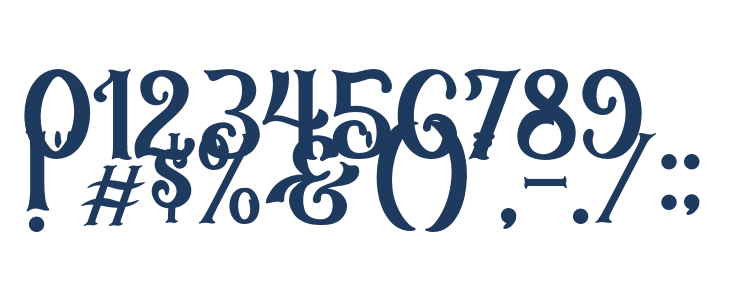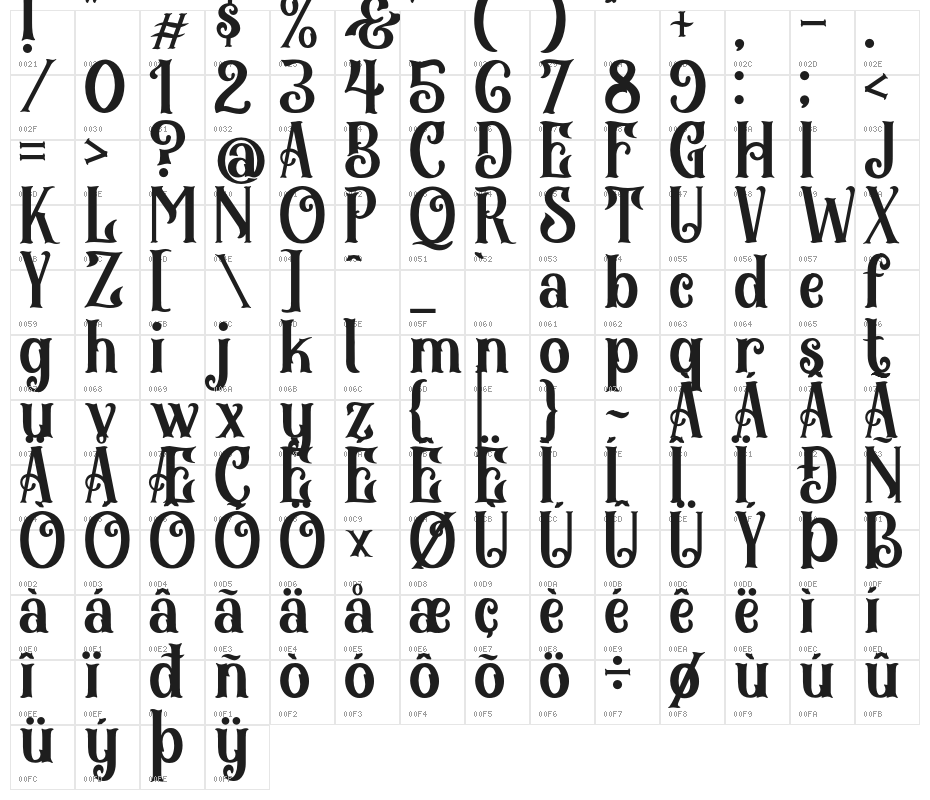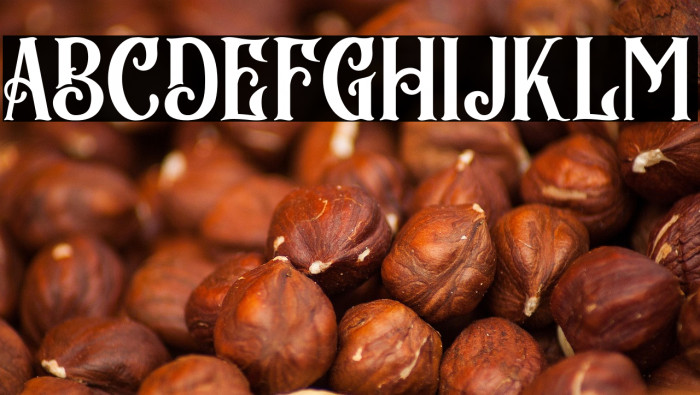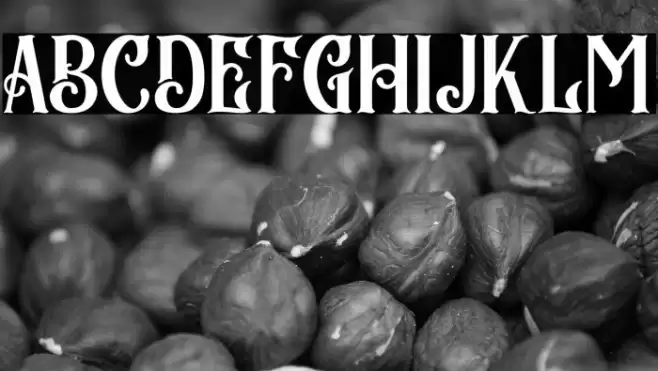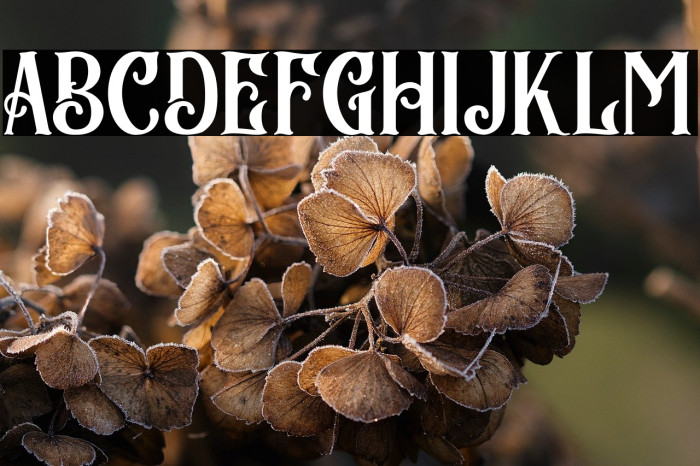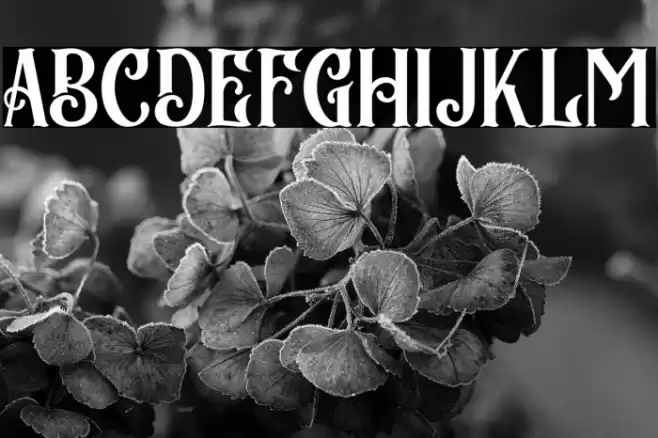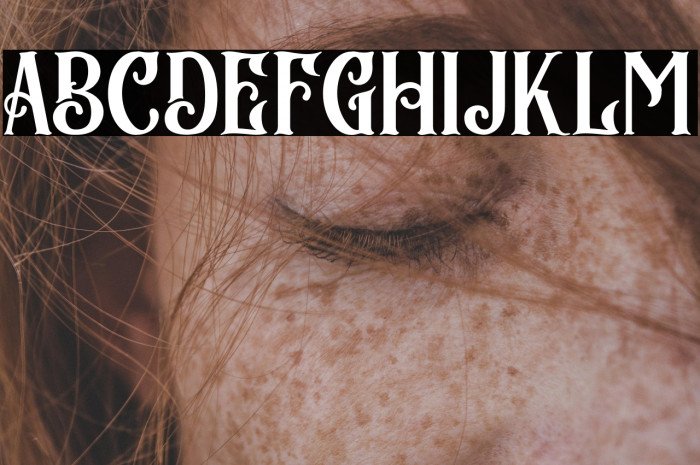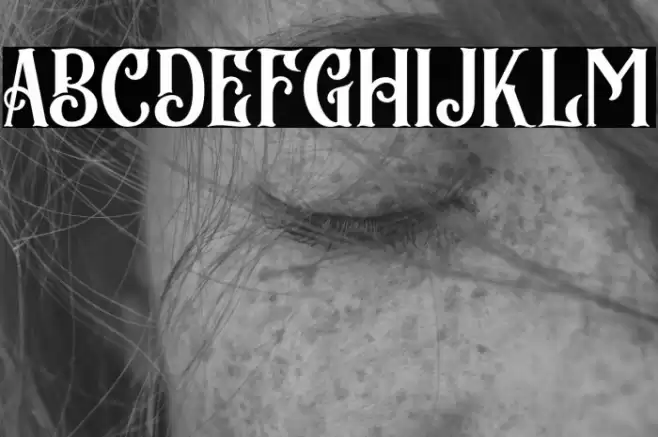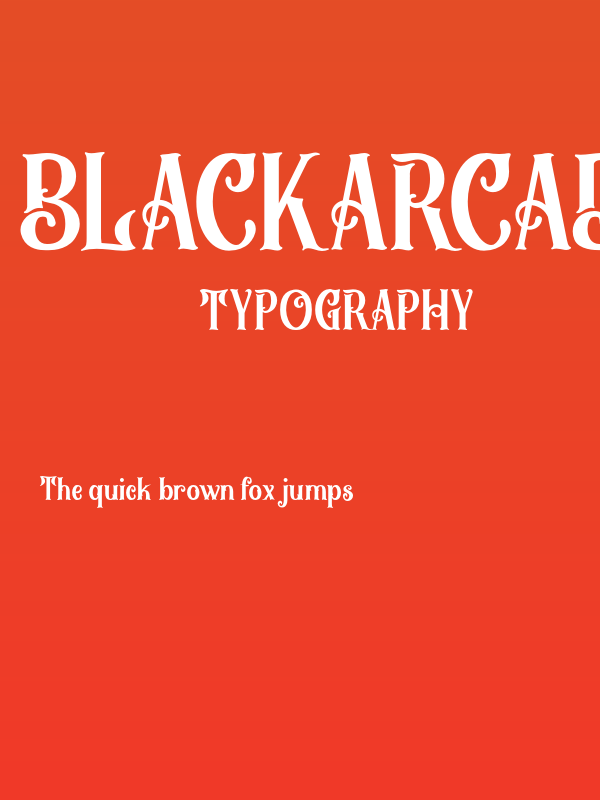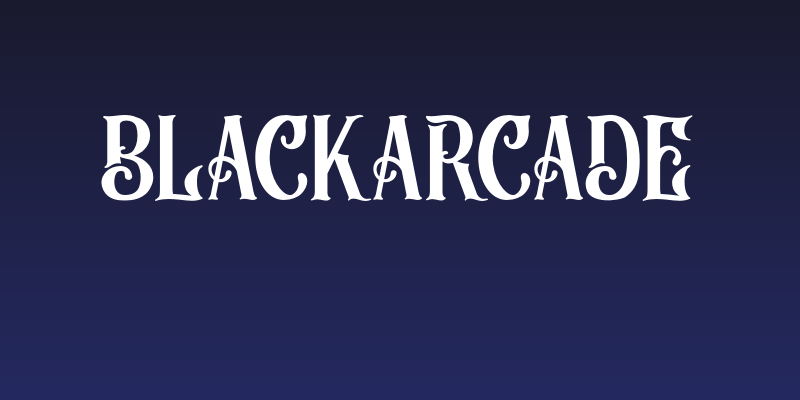
BlackArcade Font
BlackArcade Description
This font features a bold and decorative style with a vintage flair. The uppercase letters are characterized by their intricate curves and flourishes, giving them a unique and artistic appearance. The lowercase letters maintain a consistent style, with some characters exhibiting playful loops and swashes. The numerals are equally stylized, with a bold presence and distinctive design elements that make them stand out. The special characters are crafted with the same attention to detail, ensuring a cohesive look across the entire character set. This font's overall aesthetic is both eye-catching and elegant, making it suitable for a variety of creative applications.
Overall StyleVintage, Decorative
Proposed ProjectsIdeal for vintage-themed posters, logos, branding, and creative design projects that require a bold statement.